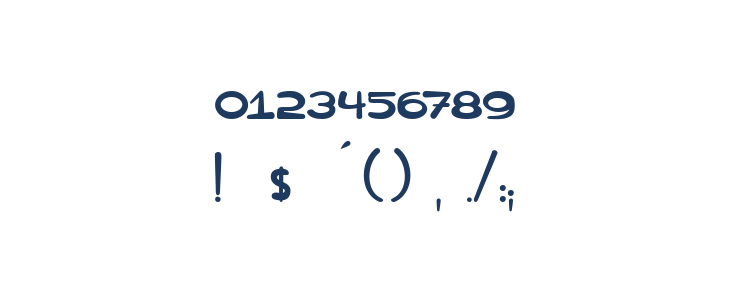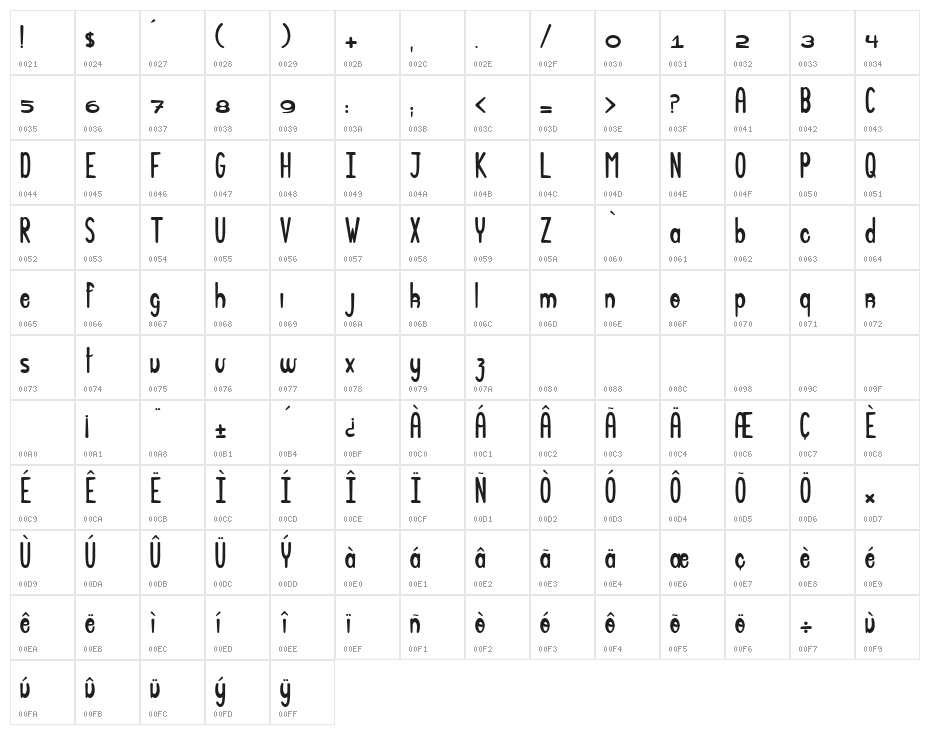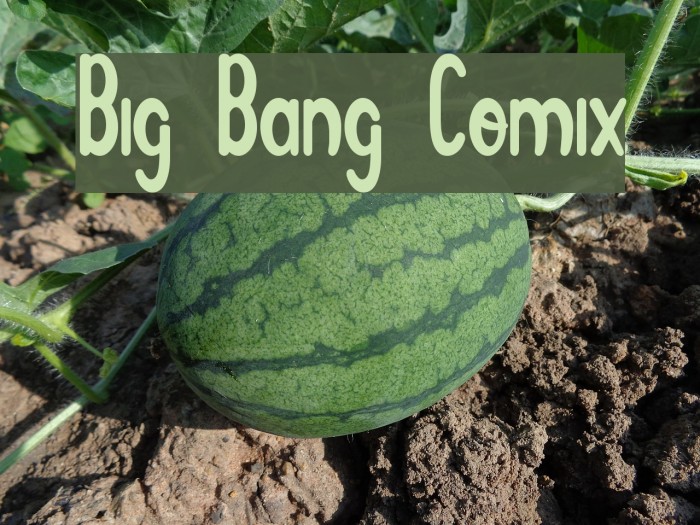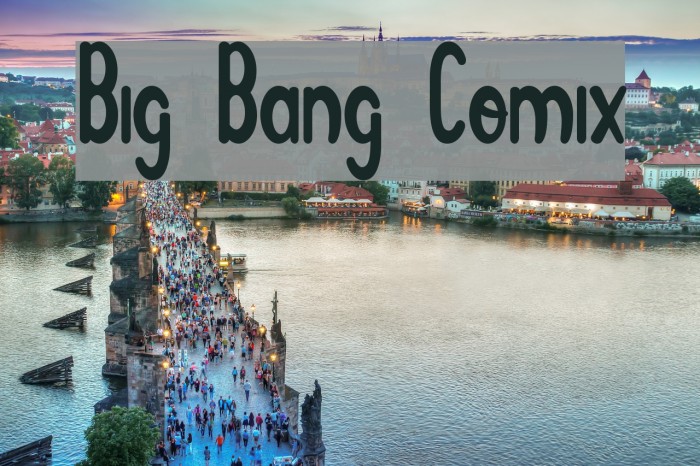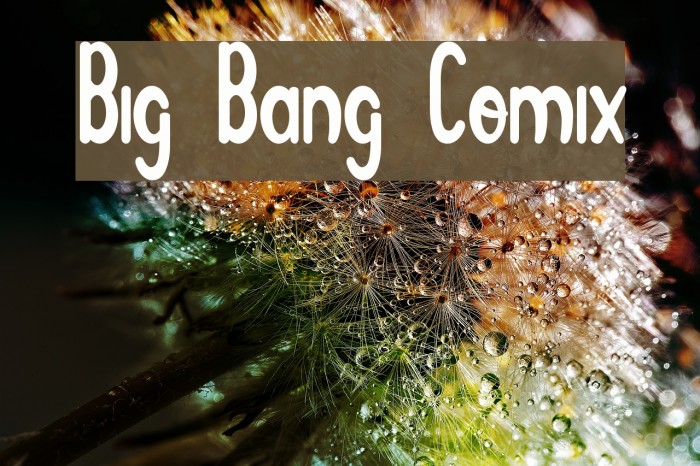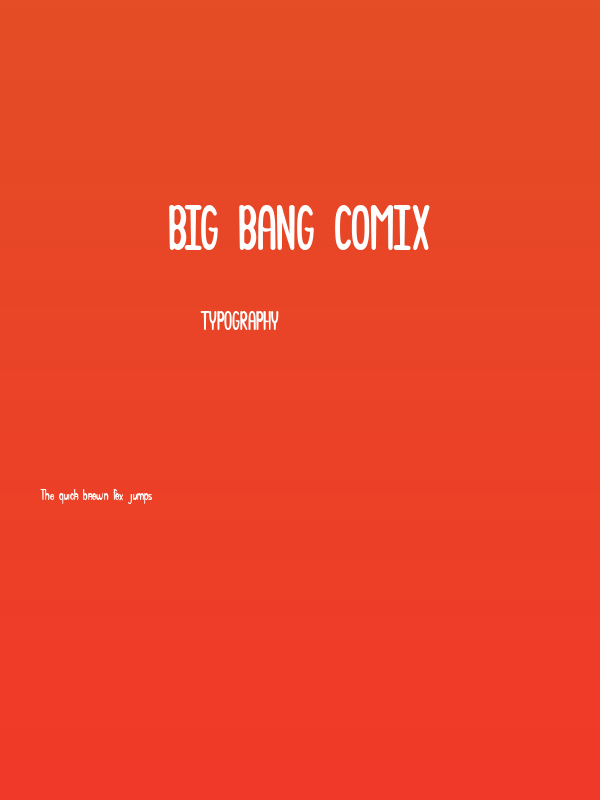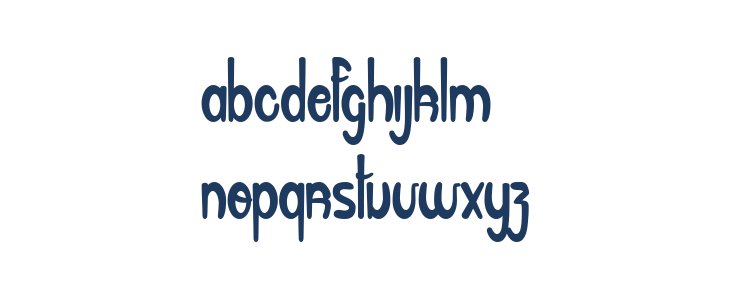
Big Bang Comix Font
Big Bang Comix Description
This playful and bold font features rounded edges and a slightly condensed form, giving it a friendly and approachable appearance. The uppercase letters are tall and narrow, while the lowercase letters maintain a consistent height, creating a cohesive look. The numbers are well-proportioned and easy to read, making them suitable for various applications. Special characters are included, adding versatility to the font. Its smooth curves and uniform stroke width contribute to its modern and casual style, making it ideal for creative projects.
| Proposed Projects | Ideal for comic books, children's books, playful branding, and casual event invitations. |